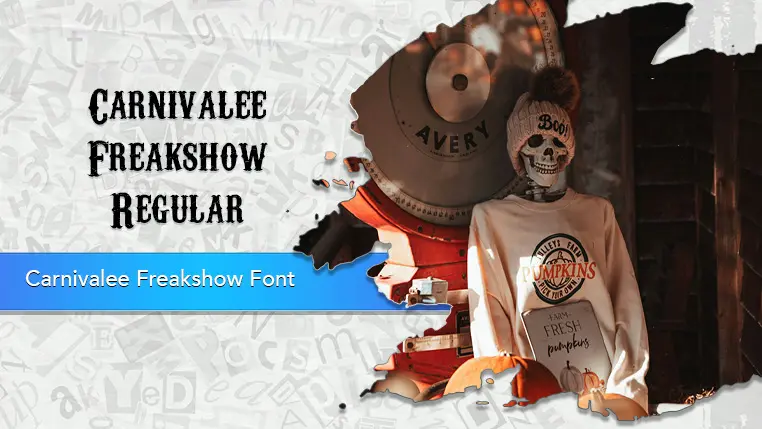
The Carnivalee Freakshow font family may be ideal for you if you enjoy working on an artistic design project. The lively, expressive look of this typeface, which was created by Chris Hansen, makes it ideal for Circus and Carnival-themed Designs. The distressed, old-timey look makes it a great choice for horror-themed posters, haunted house promotions, or Halloween party invitations. It can create a memorable and unique logo for a brand with a vintage, theatrical, or eccentric identity. The bold, impactful style works well for single-word designs or short phrases on t-shirts and other merchandise. and other light-hearted visual projects.
Regular are the one primary font styles of the Carnivalee Freakshow font family. You may build dynamic, visually appealing text layouts with the distinct flair that each style offers. With crisp, readable lines and a relaxed tone.